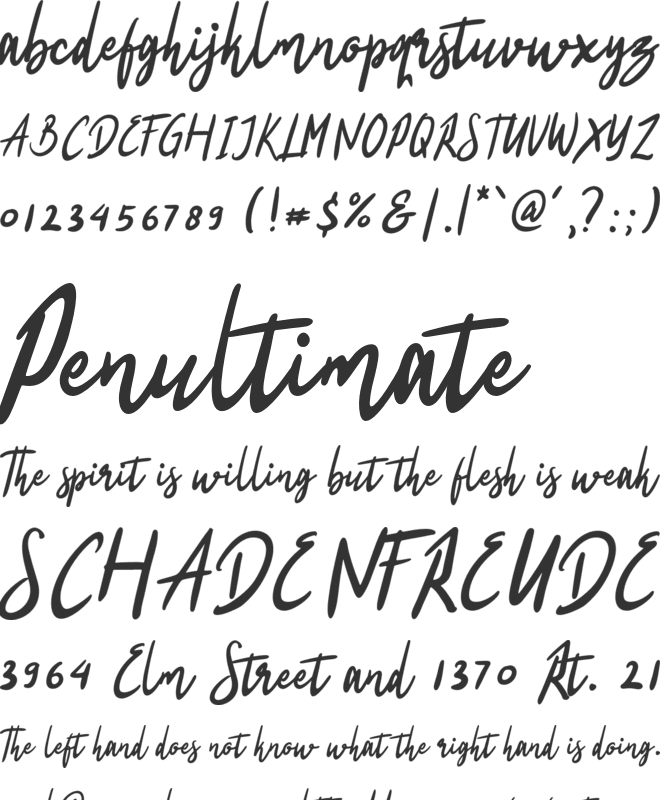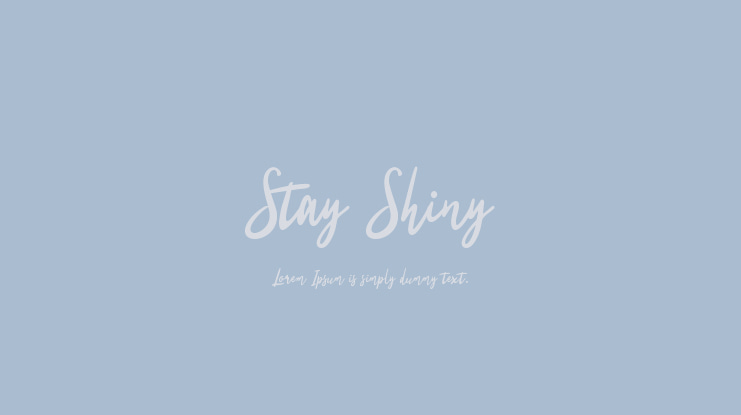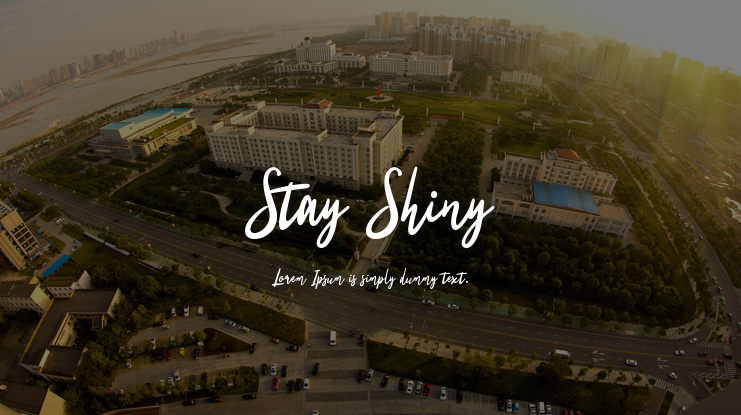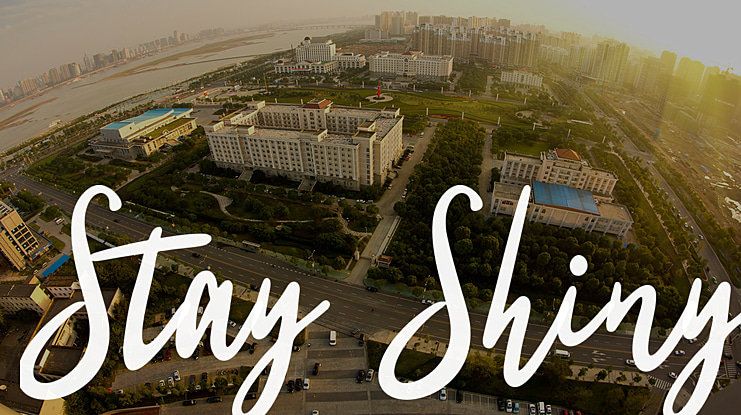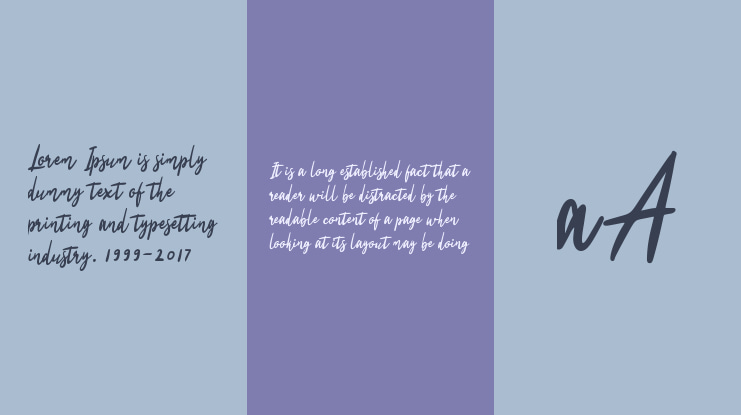
Stay Shiny Font
Stayshiny is a soft hand-lettered script font.This fun and dynamic display is a simply wonderful addition to any font library and will look great in a wide range of arts & crafts projects.--------------------------This is font Demo just for personal use. The donation is very appreciated. Not permitted for commercial use.visit my store for more great fonts https://fontbundles.net/runsellNeed Custom licenceemail: regards,Runsell Type Foundrie